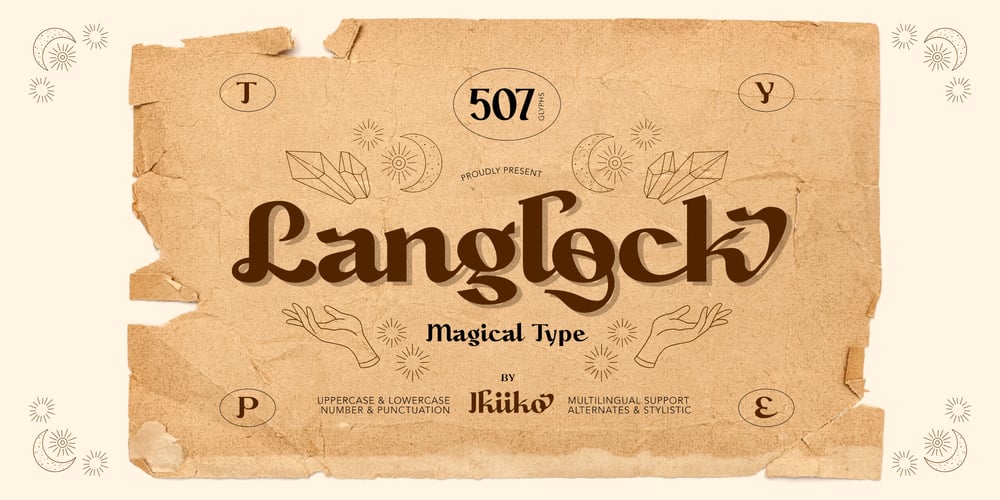
Langlock Font Family was designed by Wahyu Eka Prasetya, Andhika Pradana and published by IKIIKOWRK. Langlock contains 1 styles and family package options. Introducing Langlock – Magical Type, created by ikiiko.Langlock is a serif typeface inspired by classic fairy tales with wizard era fonts. This typeface is perfect for an classic or vintage book layout, fairy tale, magical stuff, flyer design, poster design, inspirational quotes, or simply as a stylish text overlay to any background image.What’s included? Uppercase & Lowercase Number & Punctuation Alternates & Stylistic Multilingual Support Enjoy our font and if you have any questions, you can contact us by email : ikiikowrk@gmail.com